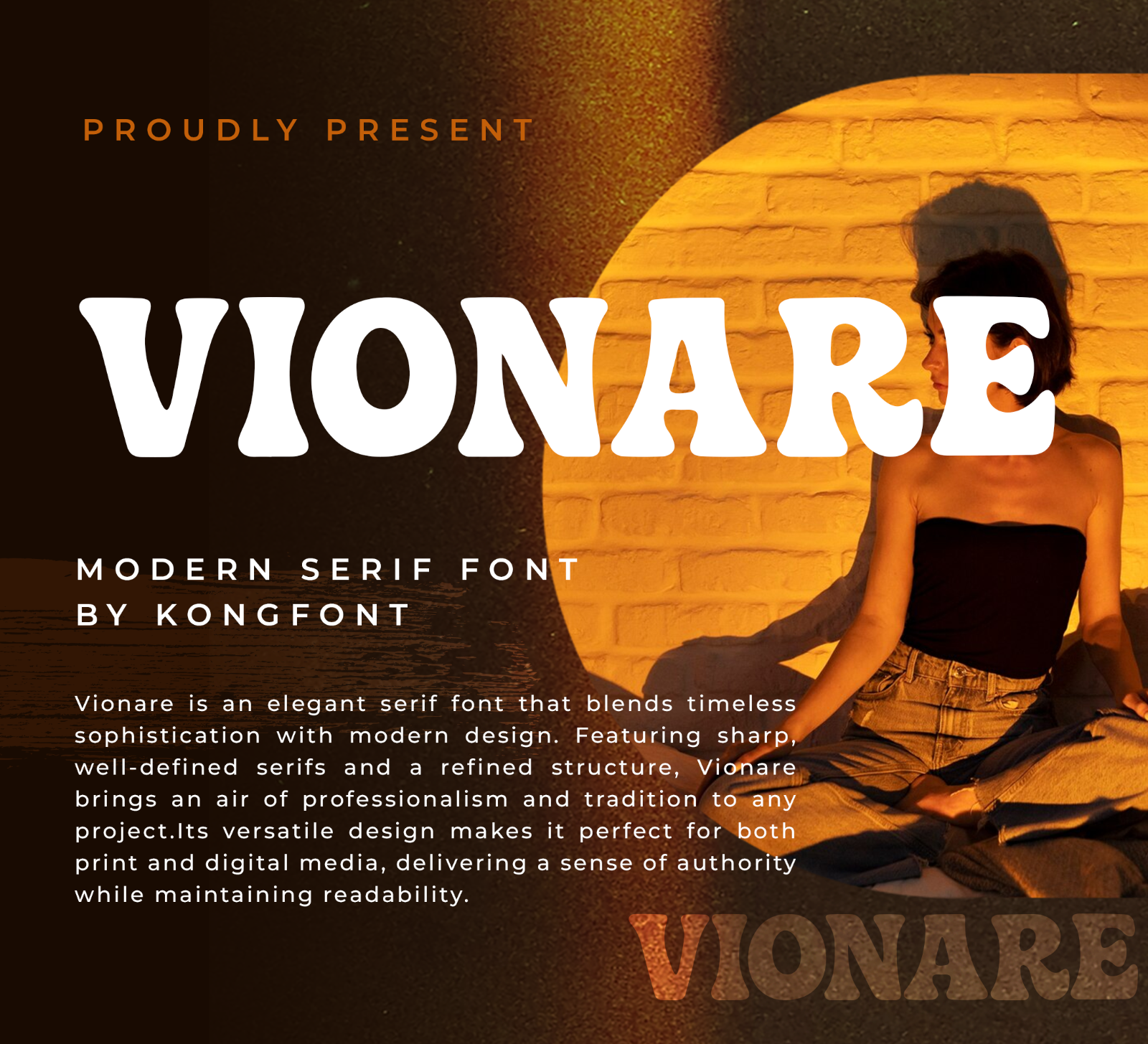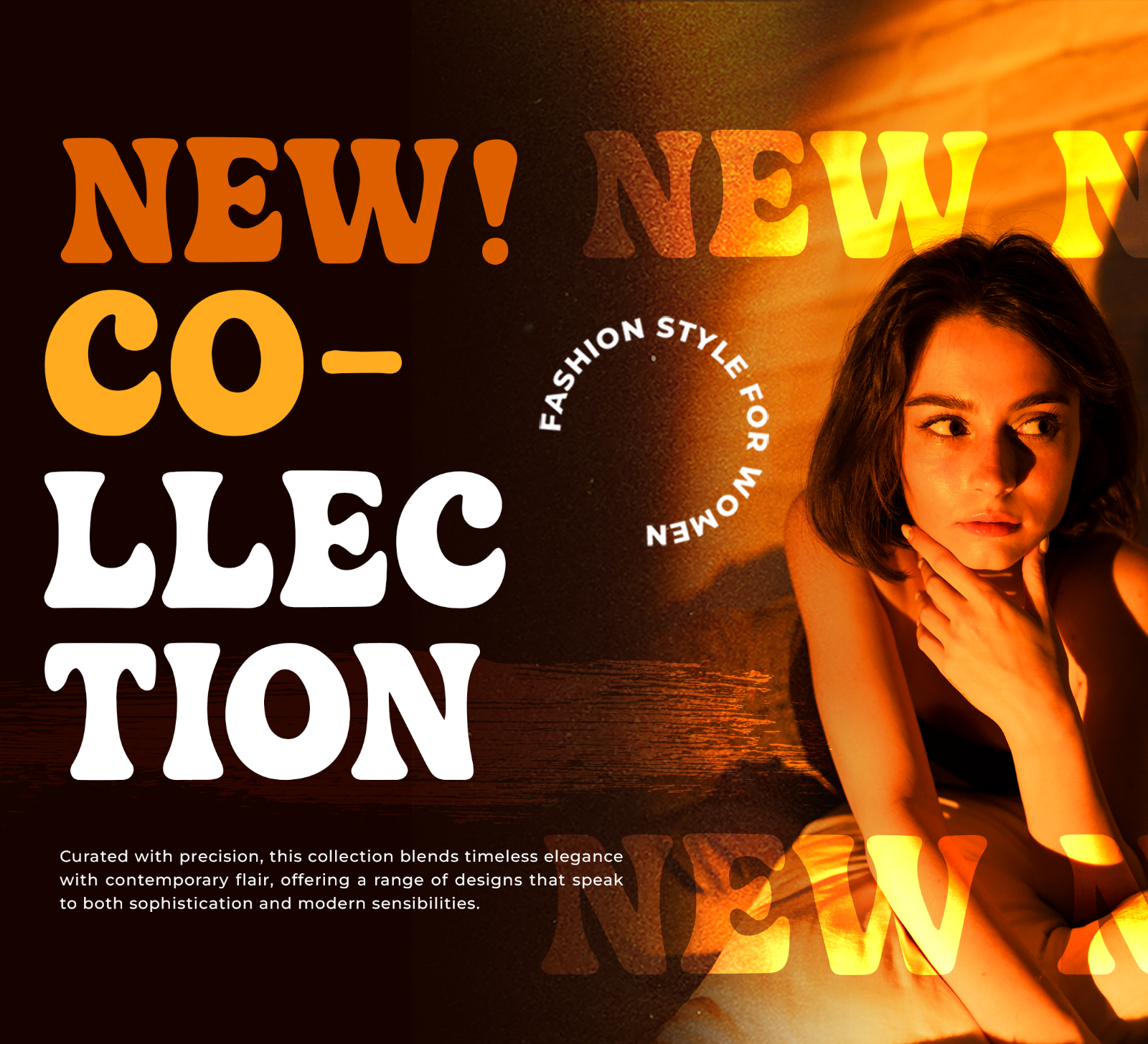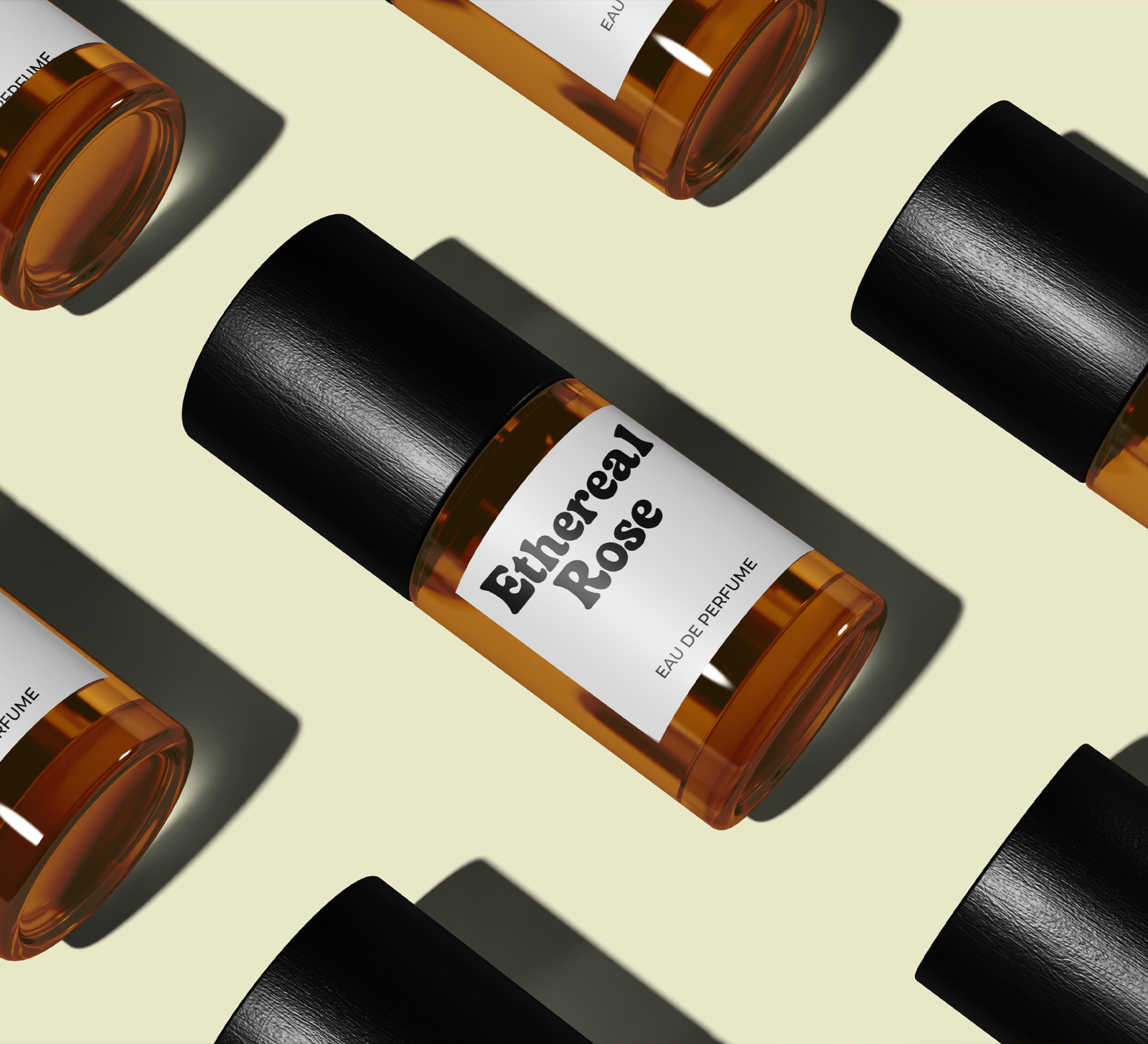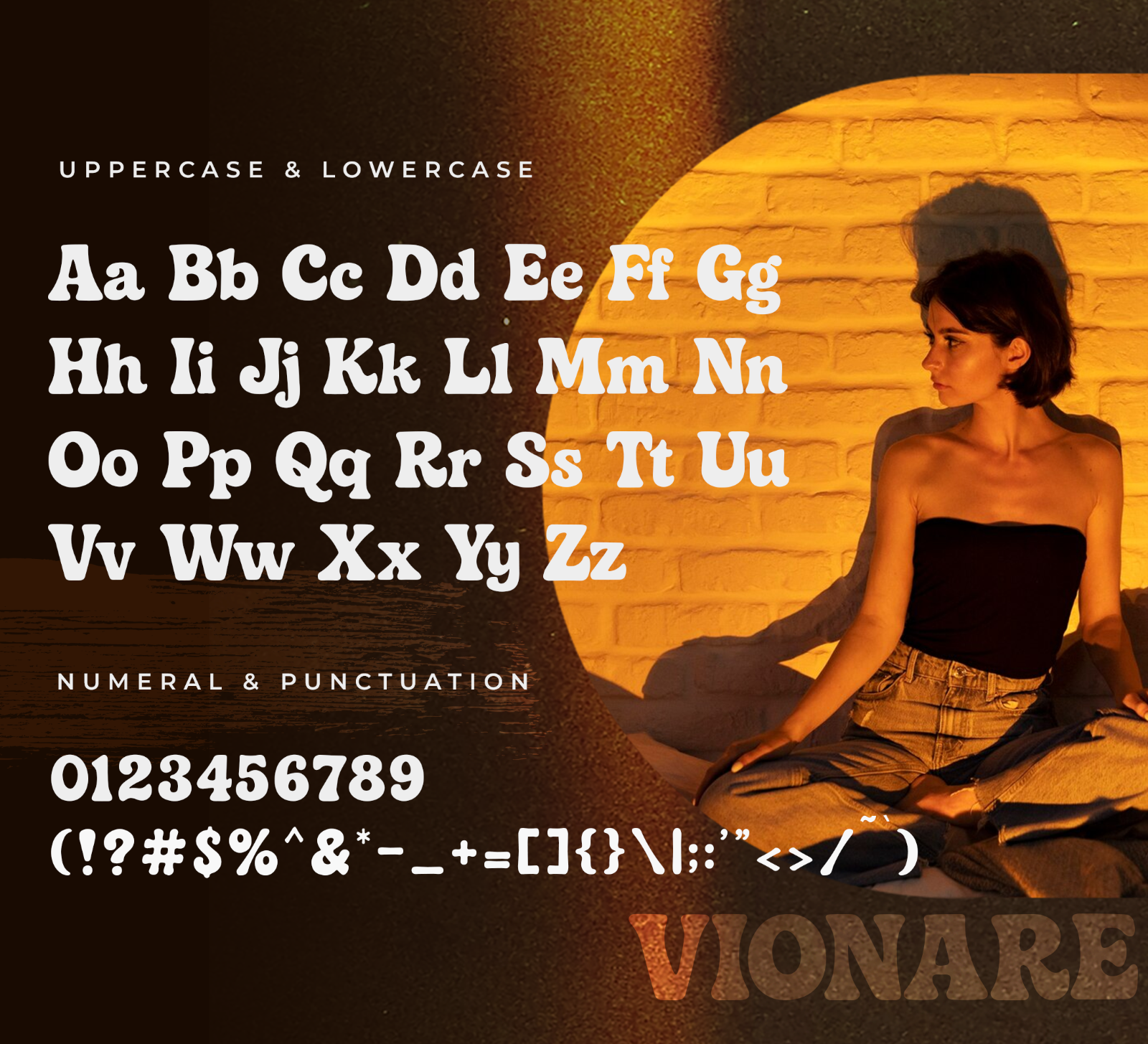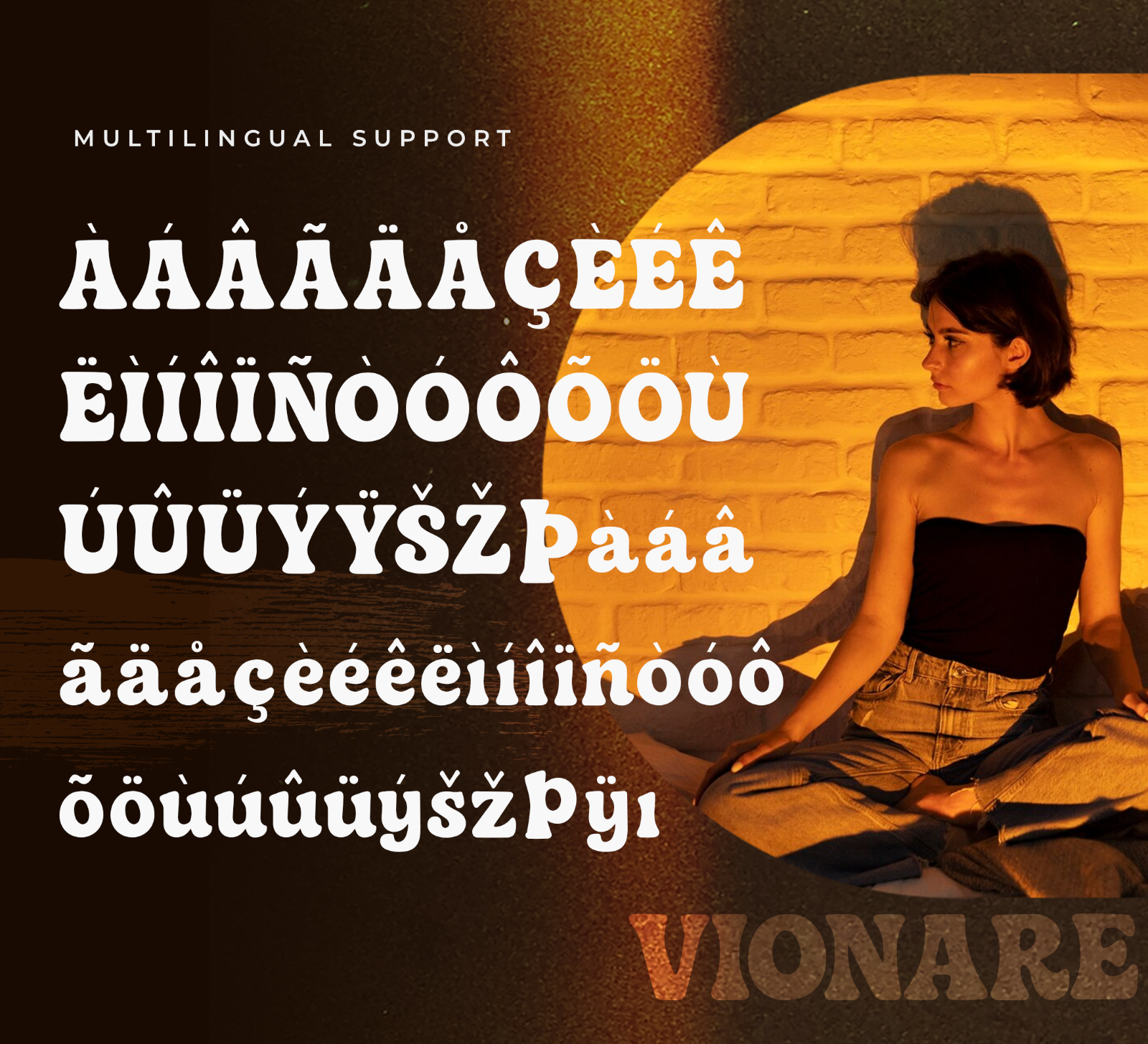
Vionare is a modern serif font with bold letterforms, elegant curves, and a unique classy style. Its clean and distinctive appearance makes it perfect for designs that need a refined, stylish, and memorable look.
• Branding
• Logos
• Business cards
• Blog headers
• Quotes
• Editorial titles
• Packaging
• Creative typography